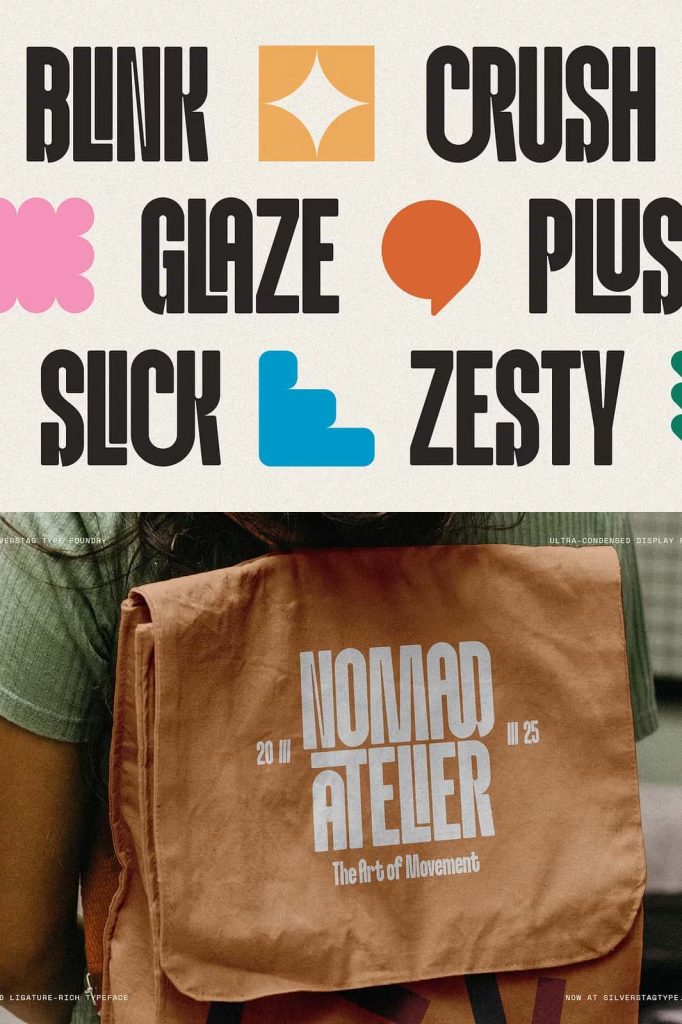
Knolt Ultra Condensed Font
Knolt is a sleek and modern ultra-condensed display font designed for creatives who want to make a powerful visual statement. Featuring dramatic vertical proportions, bold high-contrast strokes, and precisely crafted ink traps, Knolt delivers an unmistakable presence that instantly commands attention. Every character has been carefully designed to maximize impact while maintaining outstanding readability, making it an excellent choice for premium branding, fashion editorials, luxury packaging, and contemporary graphic design.
Inspired by modern typography trends and editorial aesthetics, Knolt combines sophistication with bold architectural structure. Its narrow proportions allow designers to fit more visual impact into limited spaces without sacrificing clarity or elegance. Whether you’re designing a magazine cover, creating a luxury fashion campaign, or developing a memorable logo, Knolt gives every project a distinctive personality that stands apart from ordinary display fonts.
From digital experiences to high-quality printed materials, Knolt offers exceptional versatility while maintaining a premium and contemporary appearance.
Modern Ultra-Condensed Design
Knolt embraces the beauty of ultra-condensed typography by maximizing height while minimizing width. This distinctive construction creates dramatic headlines that immediately capture attention and establish a bold visual hierarchy.
The tall letterforms allow designers to create striking compositions without overwhelming the layout. Instead of occupying excessive horizontal space, Knolt efficiently uses vertical proportions to produce typography that feels elegant, modern, and highly expressive.
This refined balance between compact design and visual power makes Knolt particularly effective for display applications where every letter needs to leave a lasting impression.
Sharp Ink Traps with Contemporary Character
One of Knolt’s defining characteristics is its expertly designed ink traps. These sharp interior cuts not only enhance the font’s visual identity but also improve overall readability at various sizes. The ink traps introduce subtle geometric details that give the typeface a sophisticated and technical appearance while maintaining smooth letterforms.
This modern design element adds depth and personality, allowing Knolt to feel both stylish and functional. The result is a typeface that performs exceptionally well in luxury branding, editorial design, and contemporary marketing materials.
High-Contrast Strokes That Demand Attention
Knolt features carefully balanced high-contrast strokes that create dynamic visual movement throughout every word. Thick vertical stems work harmoniously with thinner connecting strokes, producing typography that feels elegant, energetic, and visually engaging.
This dramatic contrast allows headlines, logos, and titles to stand out immediately while maintaining a refined and professional appearance. Whether used in large-scale advertising or premium packaging, Knolt consistently communicates confidence and creativity.
Perfect for Fashion Branding
Modern fashion brands rely on bold typography to communicate identity, and Knolt has been developed specifically for this purpose. Its sleek proportions and premium appearance complement luxury photography, minimalist layouts, and sophisticated branding systems.
Knolt is ideal for:
- Fashion brand logos
- Luxury clothing labels
- Editorial magazine covers
- Runway campaign graphics
- Cosmetic branding
- Jewelry packaging
- Perfume labels
- Boutique branding
- Luxury product packaging
- Designer lookbooks
The font helps businesses establish a strong visual identity while reinforcing a premium brand image.
Create Powerful Editorial Layouts
Editorial typography requires fonts that balance creativity with readability, and Knolt excels in this area. Its tall, narrow letterforms naturally create dramatic headlines that anchor magazine spreads, newspapers, catalogs, and promotional publications.
Designers can combine Knolt with elegant serif fonts or clean sans serif typefaces to create visually engaging layouts that maintain strong typographic hierarchy. The font’s architectural appearance also pairs beautifully with minimalist photography and modern graphic compositions.
Excellent for Packaging and Display Typography
Packaging design often demands typography that captures attention within seconds. Knolt’s ultra-condensed structure allows designers to maximize visual impact even when working within limited space.
Its strong display characteristics make it suitable for:
- Product packaging
- Luxury labels
- Wine packaging
- Coffee branding
- Food packaging
- Cosmetic products
- Retail displays
- Promotional materials
- Shopping bags
- Gift boxes
The font creates premium-looking packaging that communicates quality while helping products stand out on crowded shelves.
If you’re looking for a display font that delivers confidence, sophistication, and exceptional visual impact, Knolt is a valuable addition to your typography collection. Its striking design helps transform ordinary headlines into memorable statements while giving every creative project a refined and modern identity.